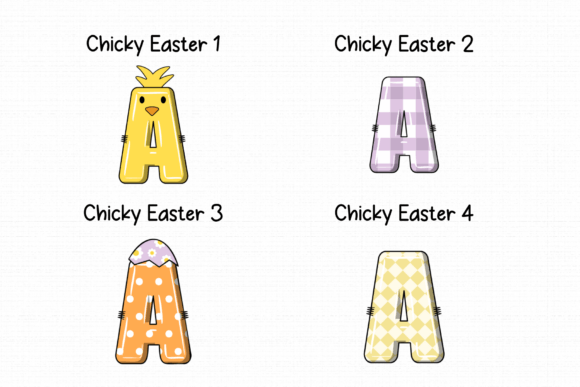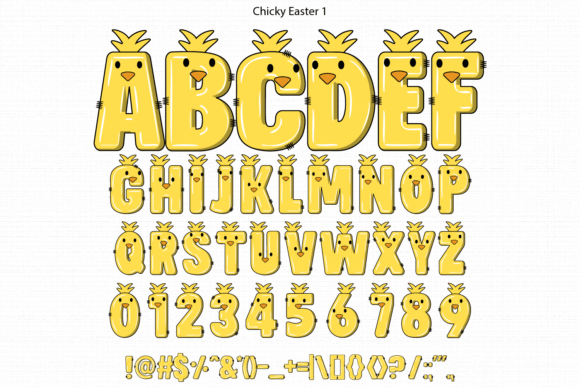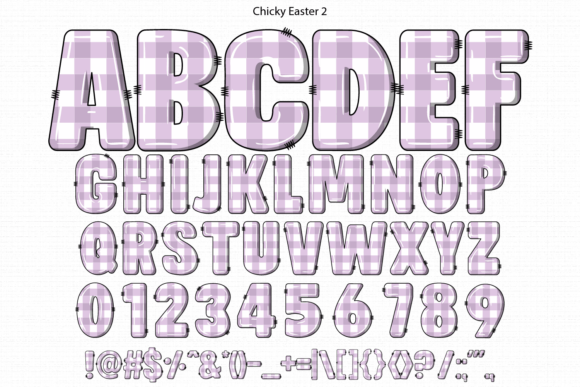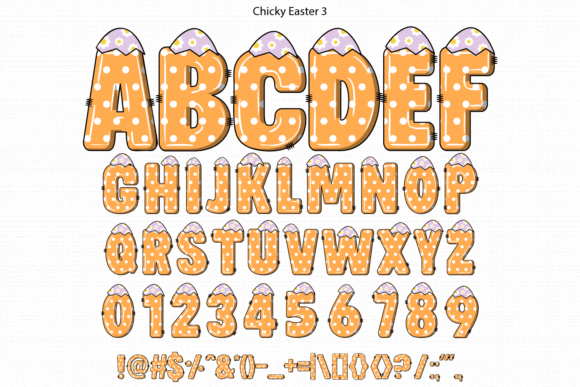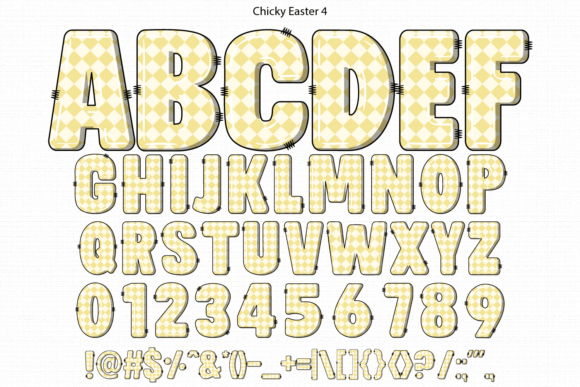
Introducing Chicky Easter Font: The Ultimate Easter Decorating Companion
Are you ready to add a dash of Easter joy to your crafting projects, holiday cards, and party invitations? Look no further than the Chicky Easter Font, a delightful color font that’s bursting with playful charm! This adorable font features letters adorned with gingham patterns, polka dots, floral designs, and irresistible chick illustrations, making it the perfect addition to your Easter creations.
What Makes Chicky Easter Font So Special?
The Chicky Easter Font is more than just a font – it’s an experience. Imagine being able to add a cheerful and whimsical touch to your seasonal projects with just a few clicks. This font is designed to bring a smile to your face and a spring to your step, making it perfect for:
- Crafting projects, such as Easter-themed DIYs and decorations
- Holiday cards and gift tags
- Kids’ projects, including school assignments and activity sheets
- Easter party invitations and decorations
Why Designers and Crafters Love Chicky Easter Font
As a designer or crafter, you’re always on the lookout for unique and versatile fonts that can help you stand out from the crowd. The Chicky Easter Font offers a range of benefits, including:
- Ease of use: With its user-friendly design and compatibility with popular design programs, the Chicky Easter Font is easy to use, even for those who are new to working with fonts.
- Customization options: The color version of the font allows you to experiment with different colors and designs, giving you endless possibilities for creative expression.
- Time-saving: With the Chicky Easter Font, you can create professional-looking Easter projects in no time, saving you hours of design time.
Tips and Tricks for Using Chicky Easter Font
To get the most out of your Chicky Easter Font, here are a few tips and tricks to keep in mind:
- Experiment with different colors: Try out different color combinations to create unique and eye-catching designs.
- Mix and match with other fonts: Combine the Chicky Easter Font with other fonts to create interesting and dynamic text effects.
- Use it for non-Easter projects: While the Chicky Easter Font is perfect for Easter-themed projects, it can also be used for other spring-inspired designs, such as Mother’s Day cards and summer-themed crafts.